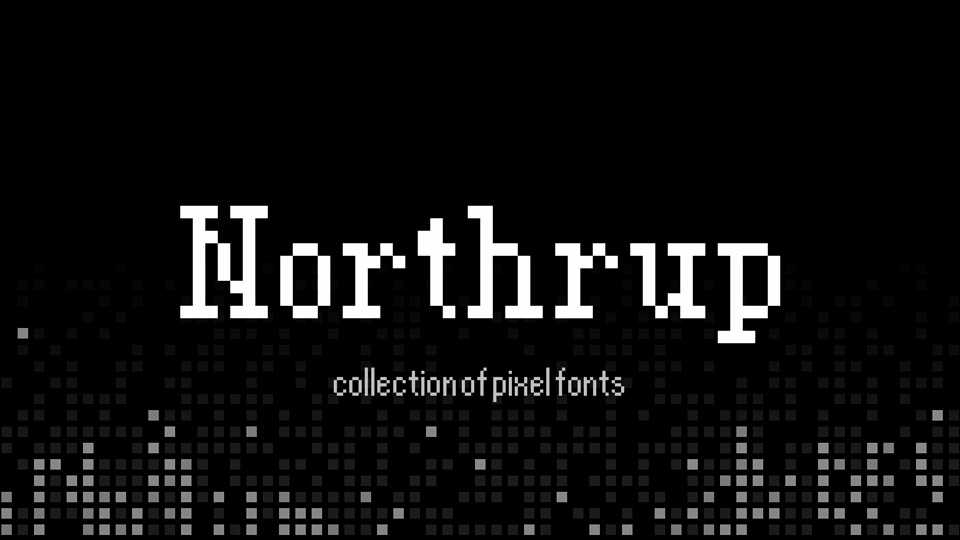
Download Northrup font, a pixel typeface/ inspired by classic video games such as the Earthbound series. Northrup boasts eight different variants, each representing one of five different optical sizes and two widths, and either a serif or sans-serif subset.